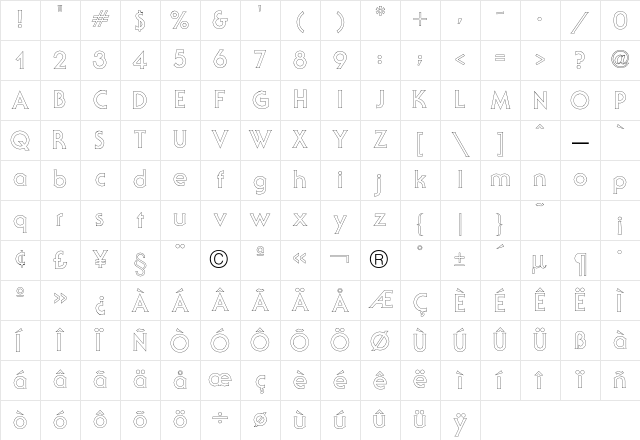
Complete Serif GothicOutline glyph index. Displaying only characters natively supported by Serif GothicOutline font.
Serif is built around its visual character rather than neutral utility - its distinctive forms are designed to make an impression at display sizes.
Font Pairing: Pair with a clean neutral sans-serif for body copy to let Serif's character lead without overwhelming the composition.
Pro Tip: Use Serif exclusively at display sizes - it was designed to be seen, not read at length. Let a neutral companion handle body copy.